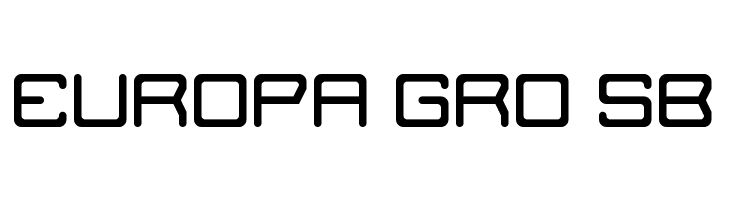
Font by www.4yeo.com
Decorative dingbat font with summer and vacation illustrations.
AlphaMaleModern Font
Font by Mickey Rossi - www.subflux.com
A futuristic, bold font with geometric and angular shapes, ideal for tech-inspired designs.
Linkin Park Extra Bold Font
Chase Babb
A bold, impactful typeface with a strong, modern presence.
Linked Font
Font by Display Studio
A bold, playful font with circular cutouts and a modern, quirky style.
4YEO IN Font
Font by www.4yeo.com
A playful, decorative font with bold letters and numbers encased in dotted circles.
yellosun Font
Font by
KongFont
A lively and elegant script font with smooth connections and decorative flourishes.
4YEOhalloween Font
Font by www.4yeo.com
A Halloween-themed decorative font with letters in coffin shapes and skeletons.
Extrano - Sombra Font
Font by Apostrophic Lab
A bold, decorative font with a shadow effect, ideal for striking designs.
Extrano - Vaca Font